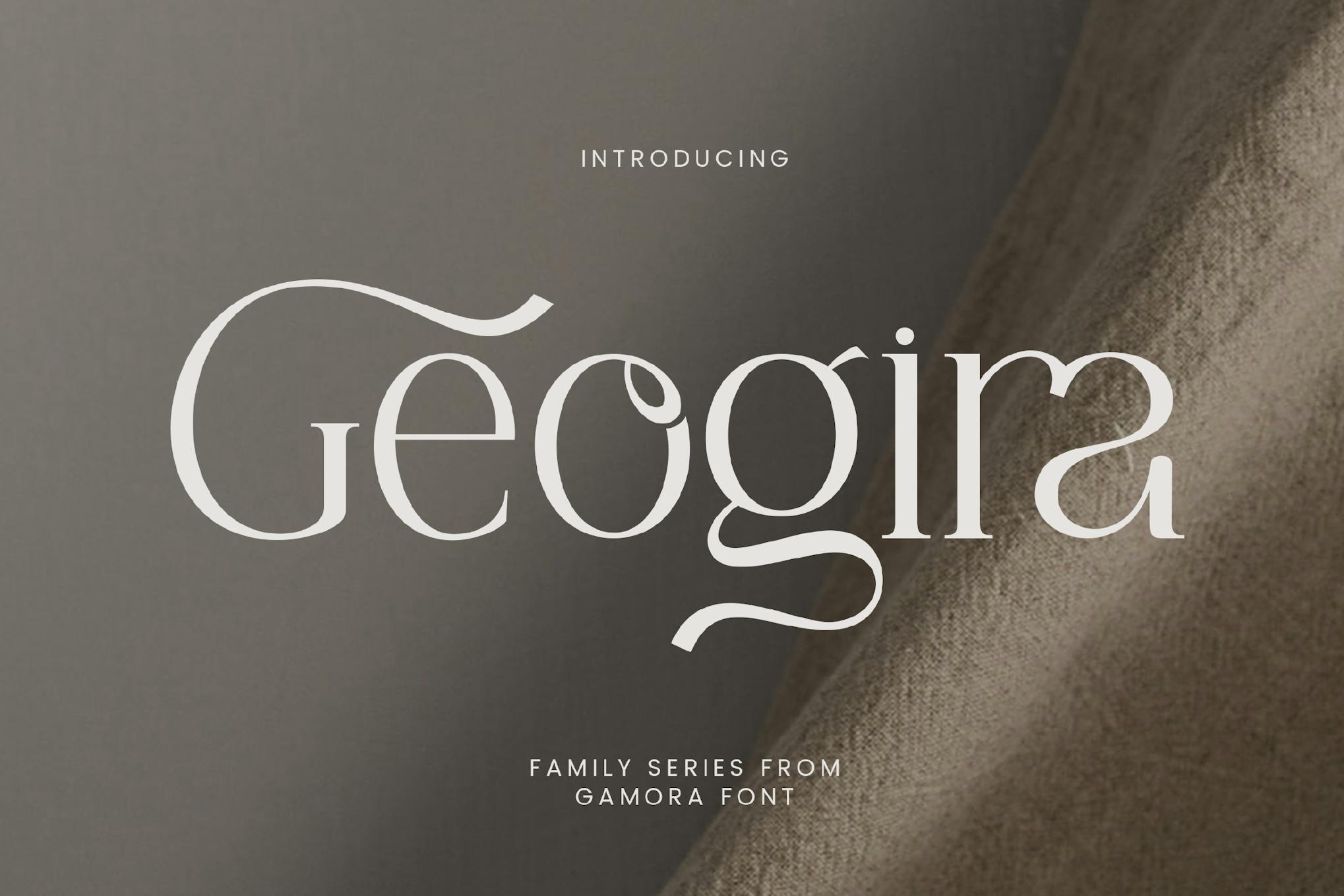
Geogira - Serif Font Family
Perfect for editorial design, book covers, branding, invitations, magazines, and website headers.
The Geogira - Serif Font Family excites designers with its elegant, classic serif style combined with modern readability, creating a timeless and sophisticated look for any project.
Font families: Geogira Regular, Geogira Bold, Geogira Italic, Geogira Light, Geogira Semi-Bold.
The Geogira - Serif Font Family Free Download is a refined typeface crafted to enhance your projects with a blend of tradition and modernity. Its well-defined serifs and balanced proportions make it ideal for print and digital media where elegance and clarity matter. Whether you’re designing book covers, editorial layouts, or sophisticated branding, Geogira brings a polished and professional touch.
One of the key strengths of Geogira - Serif Font Family is its versatility and timeless appeal. It works beautifully for both headings and body text, ensuring your content is easy to read while maintaining style and grace.
In branding, Geogira conveys trust, elegance, and reliability. It pairs wonderfully with neutral color palettes, minimalist designs, and high-quality imagery, helping brands communicate a classic and professional identity.
For digital projects, this font enhances website headers, digital publications, and presentations with its crisp and readable forms. Its family of styles allows designers to create dynamic and engaging typographic hierarchies that capture attention.